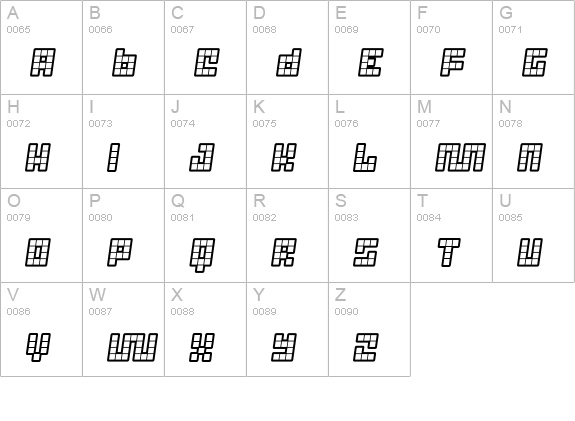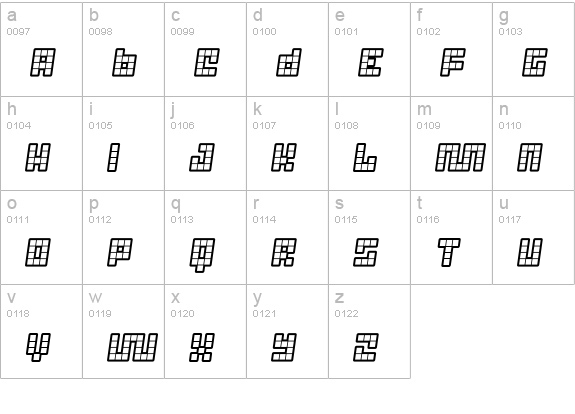
Trick B12 font is a modern and stylish typeface that will add a touch of sophistication to any design project. Its sleek lines and unique letterforms make it perfect for logos, headlines, posters, and more. With its bold and eye-catching appearance, Trick B12 will make your text stand out from the crowd. But what sets Trick B12 font apart from other fonts is that it is not only visually stunning, but it is also free to use. Yes, you heard it right! This incredible font is freely available to download at FontsMarket.com. Whether you're a professional designer or just someone looking to add a touch of creativity to your personal projects, Trick B12 font is the perfect choice. With its wide range of characters and glyphs, Trick B12 font offers endless possibilities for creative expression. Its versatility allows it to be used in various design styles, from bold and edgy to elegant and refined. The clean and crisp lines of this font ensure that it remains legible even at smaller sizes, making it suitable for both print and digital applications. So, why wait? Head over to FontsMarket.com now and grab your free download of Trick B12 font. Elevate your designs with this stunning and freely available typeface. Let Trick B12 font be the secret weapon in your design arsenal, making your projects truly memorable and visually captivating.